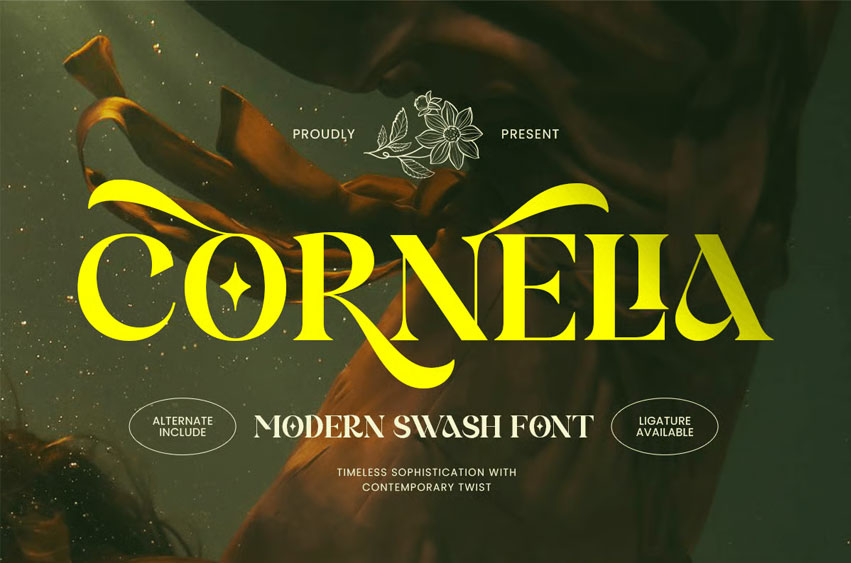
Cornelia Font
Cornelia Font is a modern elegant swash font created to bring refined luxury and graceful movement into your typography. With polished letterforms and flowing swash accents, this typeface delivers a sophisticated tone that feels romantic, premium, and beautifully elevated.
Designed for branding-forward projects, CORNELIA fits perfectly in luxury logos, wedding stationery, boutique identities, fashion editorials, beauty packaging, and premium product labels. Its swash details add a signature flourish that makes names, headlines, and logotypes feel more exclusive and memorable across print and digital designs.
Whether you’re crafting a high-end brand identity, elegant invitations, or modern editorial layouts, CORNELIA provides stylish swash character that balances elegance with contemporary clarity.
Inspiration Behind CORNELIA
CORNELIA is inspired by modern luxury branding and romantic editorial typography—where clean structure meets graceful swash details. The design focuses on creating a signature-like elegance that enhances premium identities, weddings, and fashion-forward visuals.
CORNELIA Font Features
• Modern elegant letterforms with graceful swash accents
• Premium look for logo design and refined branding systems
• Strong display presence for headlines and name-based designs
• OpenType features for polished swashes and stylish layouts
• Luxury logos and boutique brand identity
• Wedding invitations, signage, and monograms
• Fashion and beauty packaging design
• Editorial headlines and magazine covers
• Social media campaigns and premium promos
Create a signature-level brand look with CORNELIA – an elegant swash font made for premium modern design.